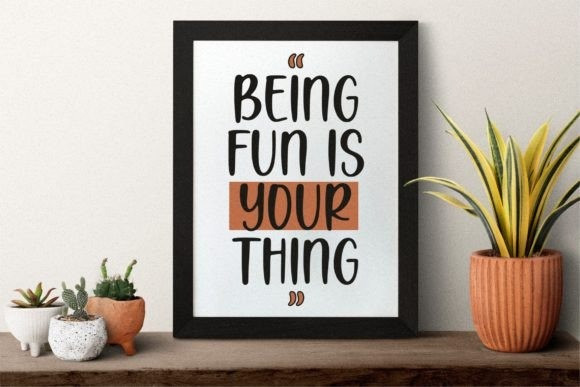
Varino Display Font
Varino is a modern and futuristic display font with an undeniably clean feel. With its neat and beautiful arrangement of letters, this typeface will look outstanding in both formal and non-formal designs.